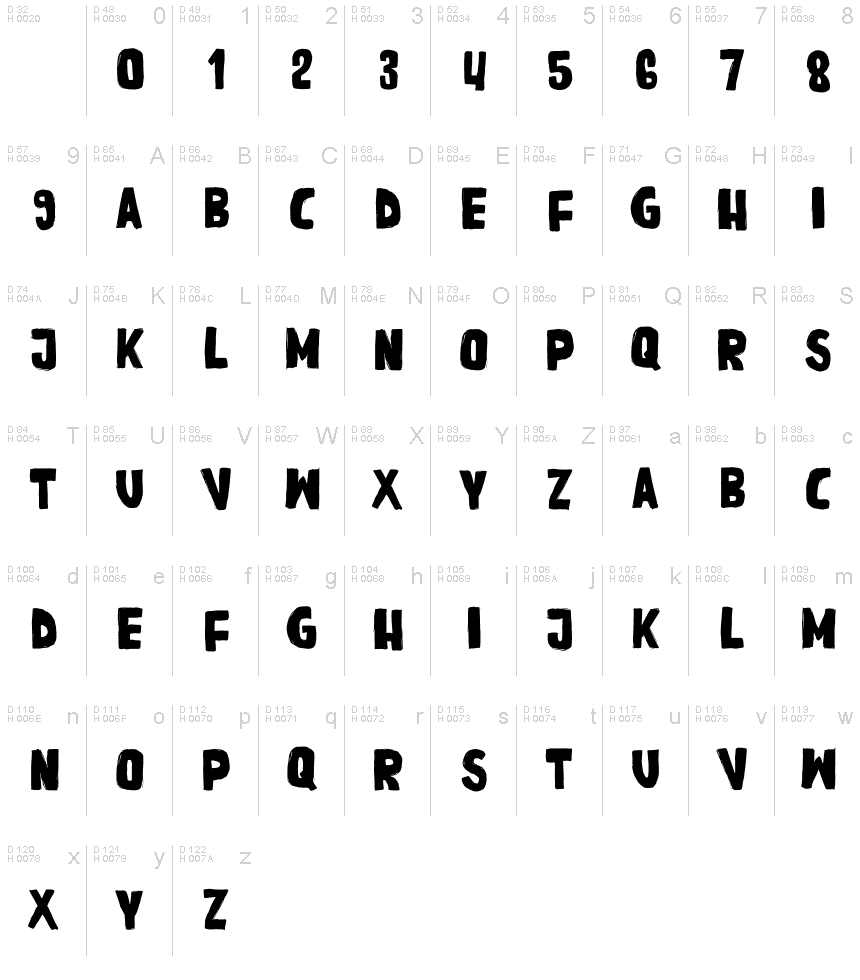
GOOD MOVE
Good Move, crafted by the imaginative The Docallisme - Amry Al Mursalaat, stands out as a display font with a whimsical twist. Its cartoon style exudes playfulness and boldness, making it an ideal choice for projects that aim to convey fun, energy, and creativity. The robust weight of Good Move offers exceptional readability while adding a touch of friendliness to your design.
Whether you're crafting eye-catching headlines, engaging advertisements, or lively branding materials, Good Move is perfectly tuned to bring your creative visions to life with its unique charm and character.
Embrace the versatility of this font and watch your designs leap off the page!